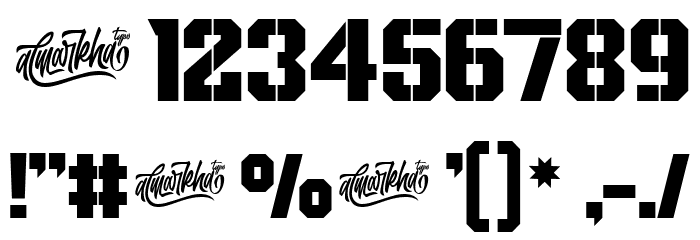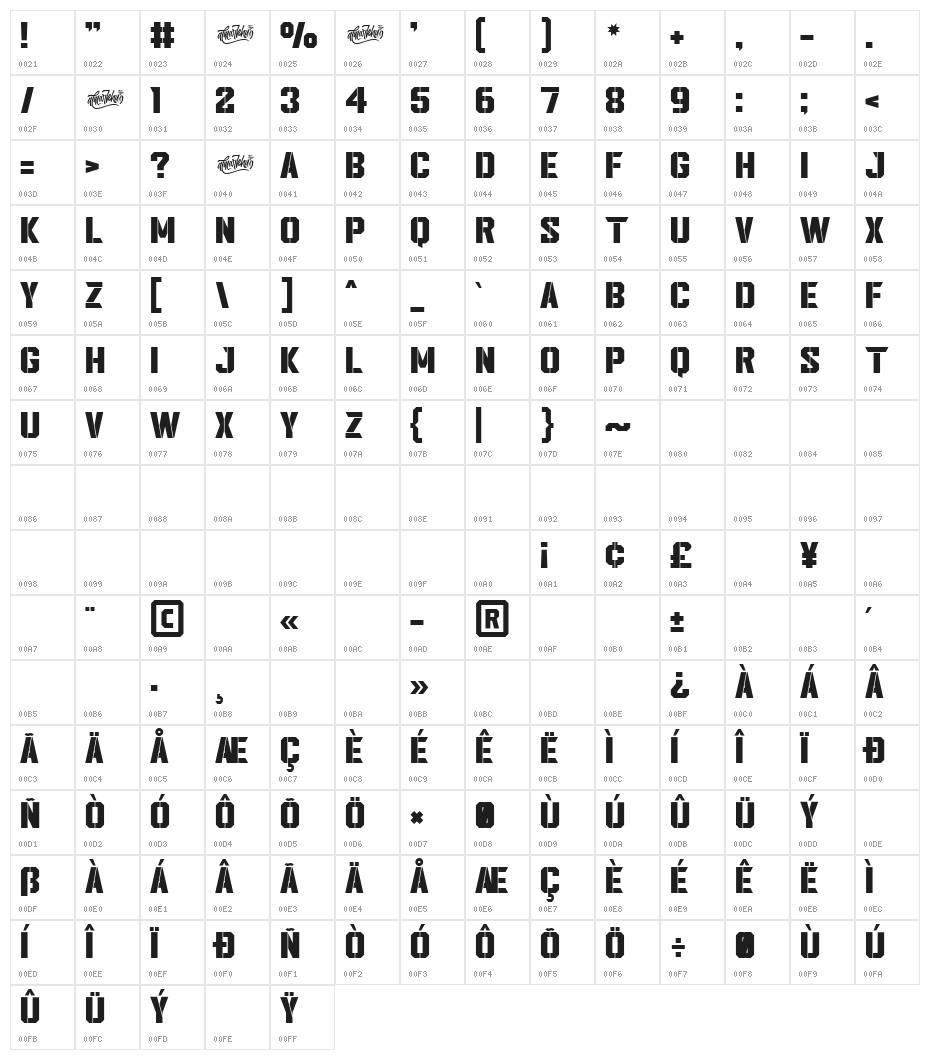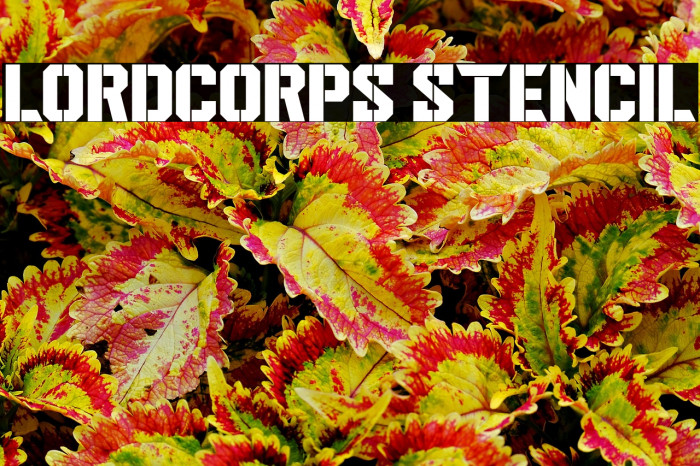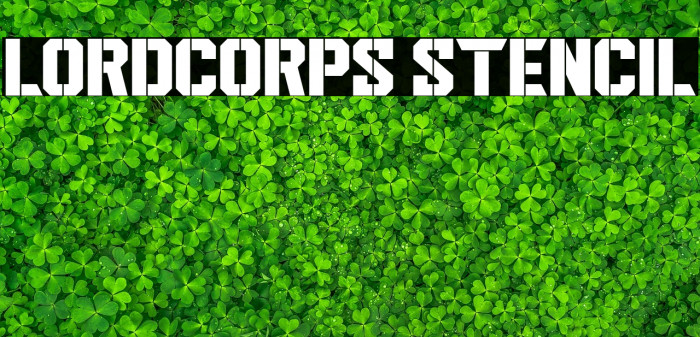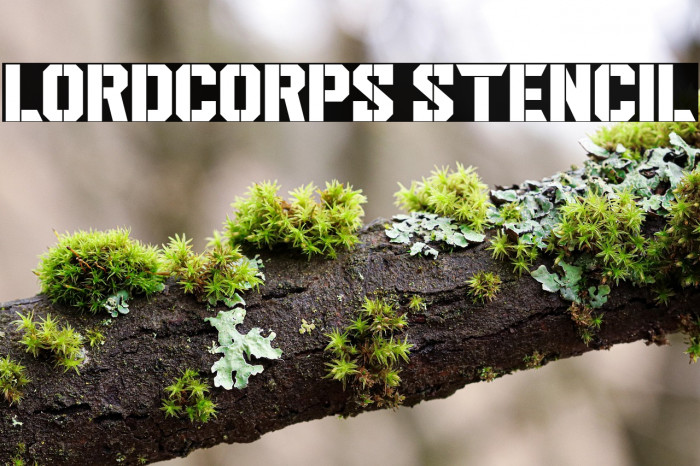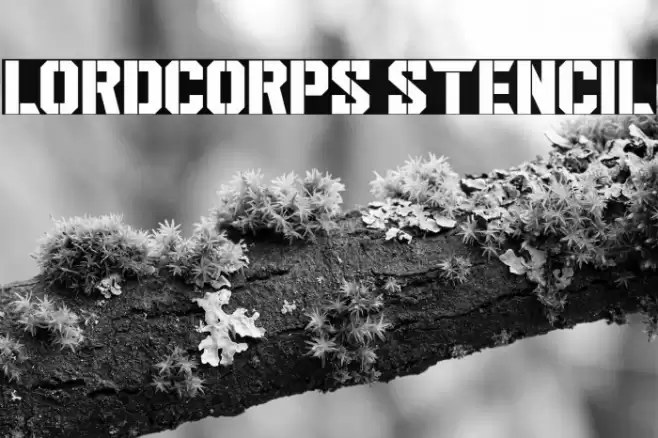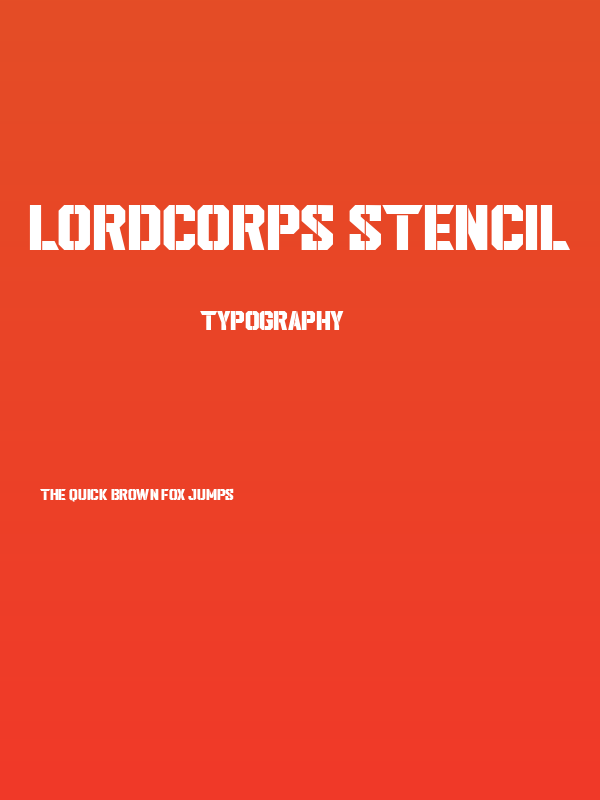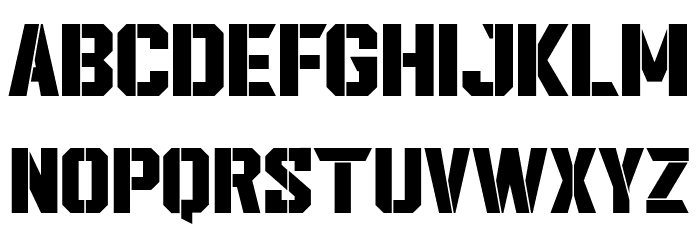
Lordcorps Stencil Font
Lordcorps Stencil Description
This font exhibits a bold, stencil-like design with strong geometric shapes and sharp angles. The uppercase letters are particularly striking, featuring a blocky, industrial style that is reminiscent of military or urban themes. The characters are well-defined with clear separations, enhancing the stencil effect. The numbers follow the same robust design, ensuring consistency across all characters. This font is ideal for projects that require a bold statement, such as posters, signage, or branding that aims to convey strength and modernity.
| Proposed Projects | Ideal for military-themed designs, urban posters, bold signage, and branding projects that require a strong, modern aesthetic. |